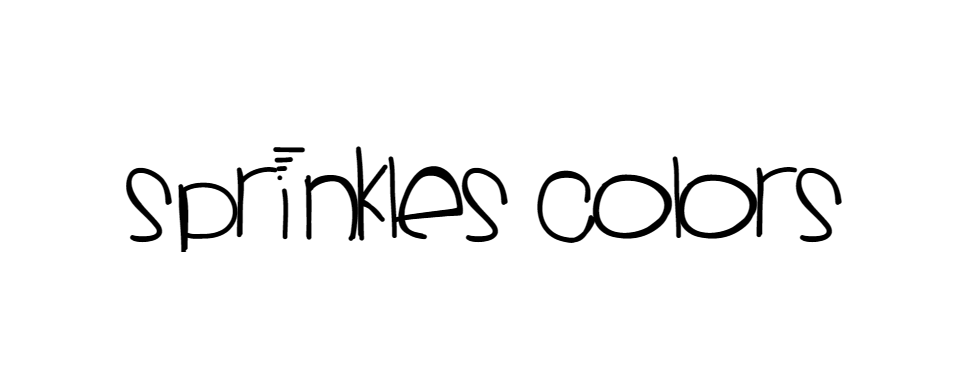
Sprinklescolors
Sprinklescolors is a handwritten font. The letters have the small wobbles and personality of real handwriting, so your text feels warm instead of printed. You can download it for free and test it with your own words in the preview above.
What You Can Type With Sprinklescolors
Sprinklescolors covers the full alphabet in upper and lowercase, plus all ten numbers, so you can set names, dates and prices without switching fonts. Common punctuation such as &, !, ? and @ is included as well. It doesn't include accented letters such as é or ñ, which makes it an English-only font.
Where Sprinklescolors Works Best
Sprinklescolors is a natural fit for greeting cards, journal pages and friendly social posts. The file has no kerning data, so in logos and big titles check pairs like AV, To and Wa and tighten the spacing by hand. Set it a bit larger than you would a normal text font. Handwriting styles lose their charm once they get too small to read comfortably.